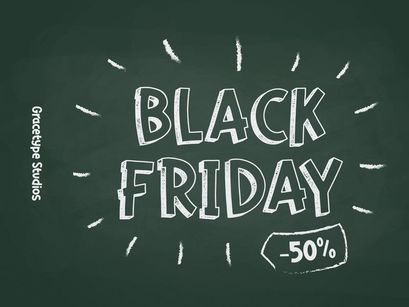
Formelo Sketchy | Playful Display, from Gracetypestudio, suitable for any projects such as: logos, branding projects, homeware designs, product packaging, mugs, quotes, posters, shopping bags, t-shirts, book covers, name card, invitation cards, greeting cards, label, photography, watermark, special events, and all your other lovely projects that need a Playful taste.